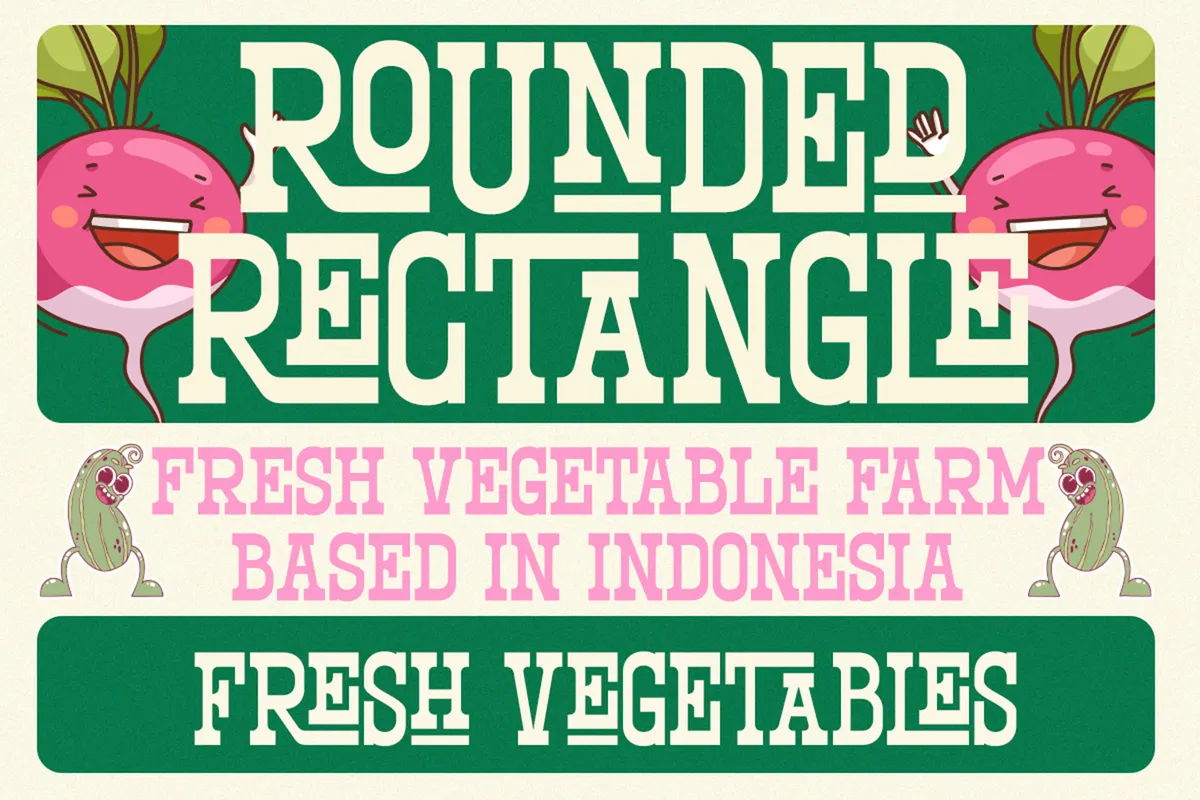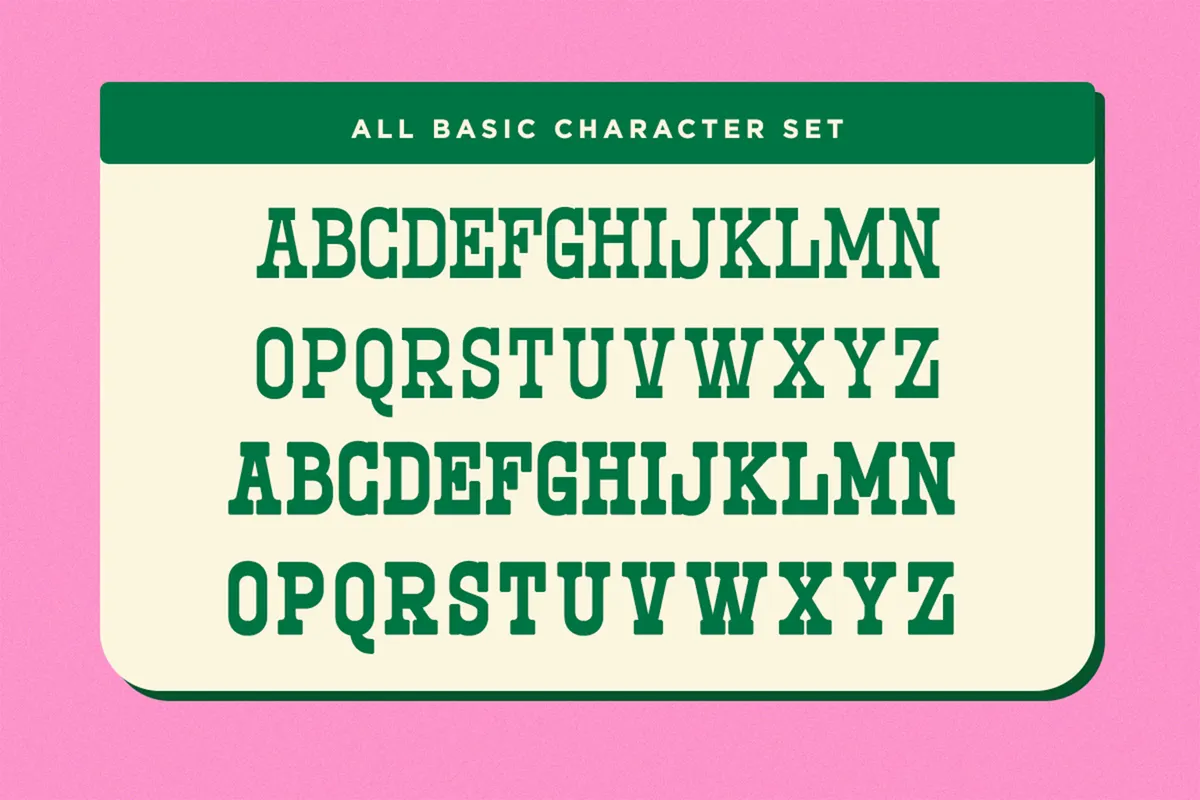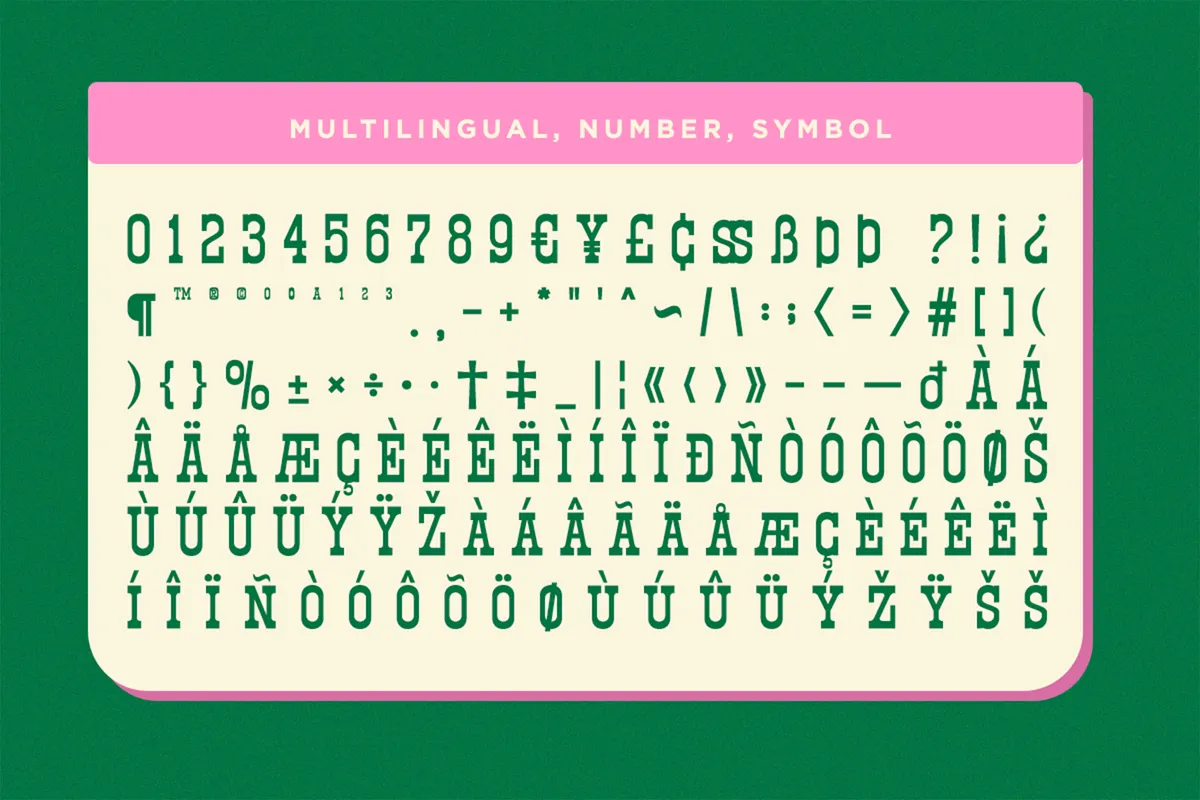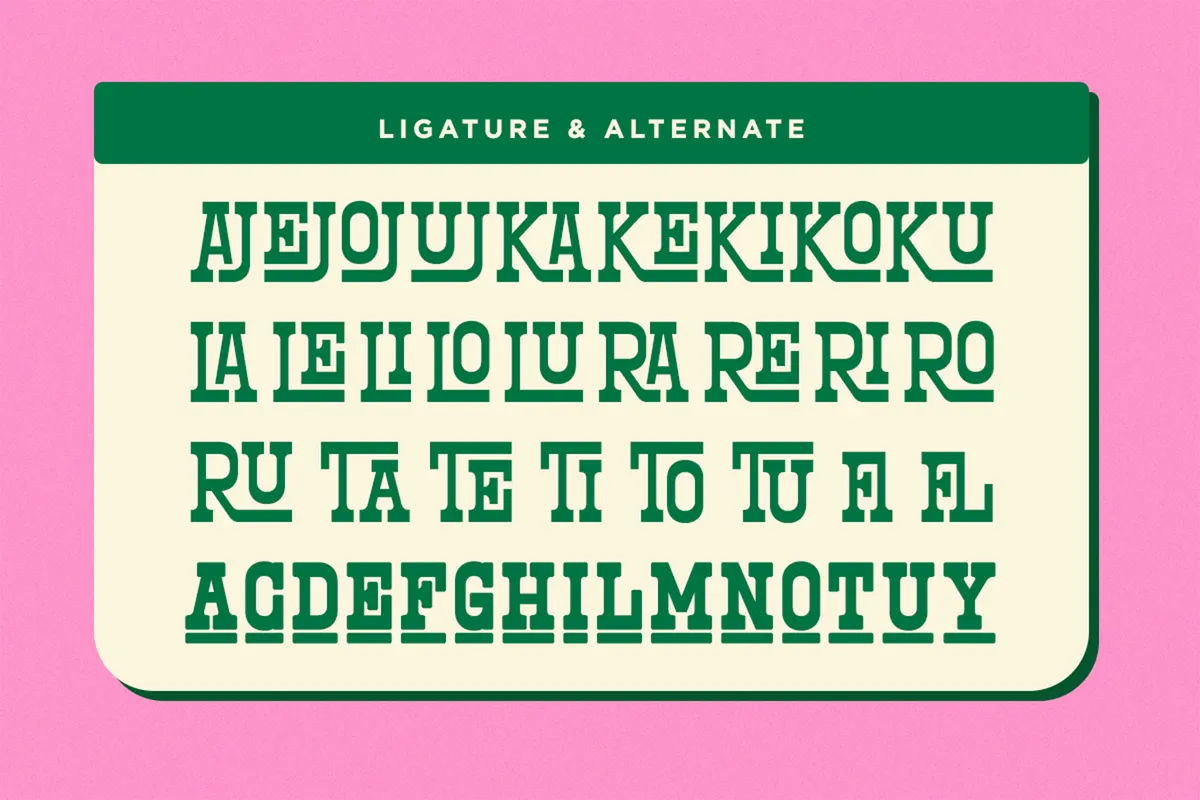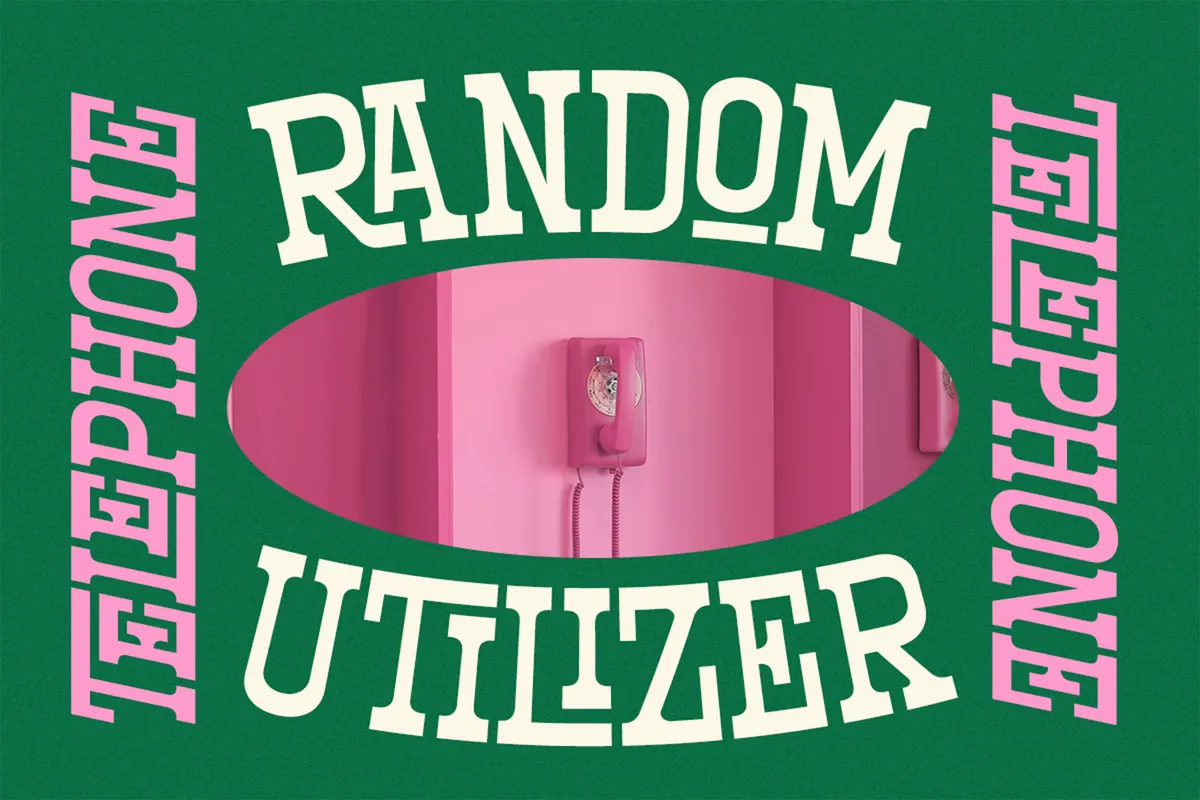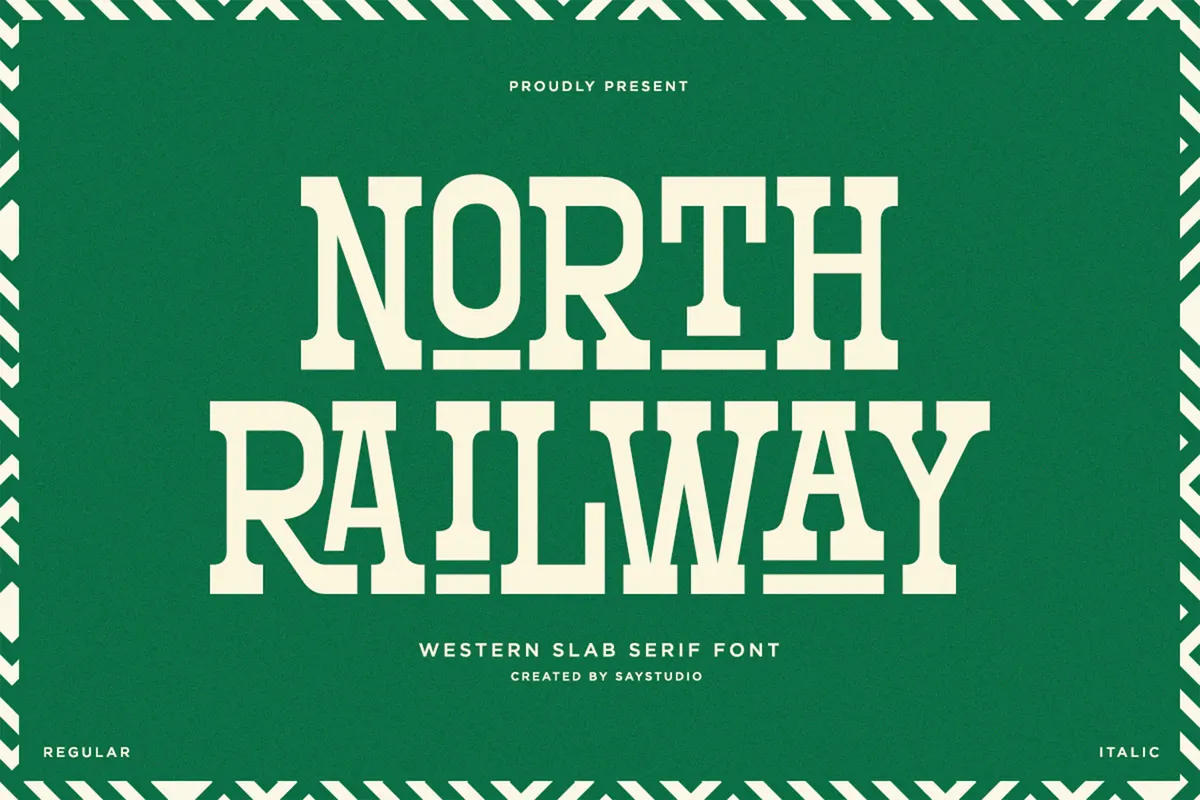
North Railway - Western Slab Serif Font
North Railway builds bold, condensed slab serif capitals with a vintage railway-badge edge, closer to an old station sign than a clean editorial slab. Fifteen letters, A, C, D, E, F, G, H, I, L, M, N, O, T, U, and Y, come with alternate forms reachable through the OpenType panel, and 26 discretionary ligatures connect pairs like KA, LO, RU, and TI into single stamped-looking marks.
Lowercase keys scale the same capital shapes down rather than drawing a separate alphabet, so the whole set reads as one consistent badge-style voice. Use it for logos, branding, posters, signage, packaging, labels, badges, apparel, coffee shops, breweries, and vintage advertisements.
- Uppercase letters;
- Numerals, punctuation & symbols;
- Regular and Italic styles;
- Stylistic alternates on 15 letters;
- 26 discretionary ligatures;
- Superscript figures;